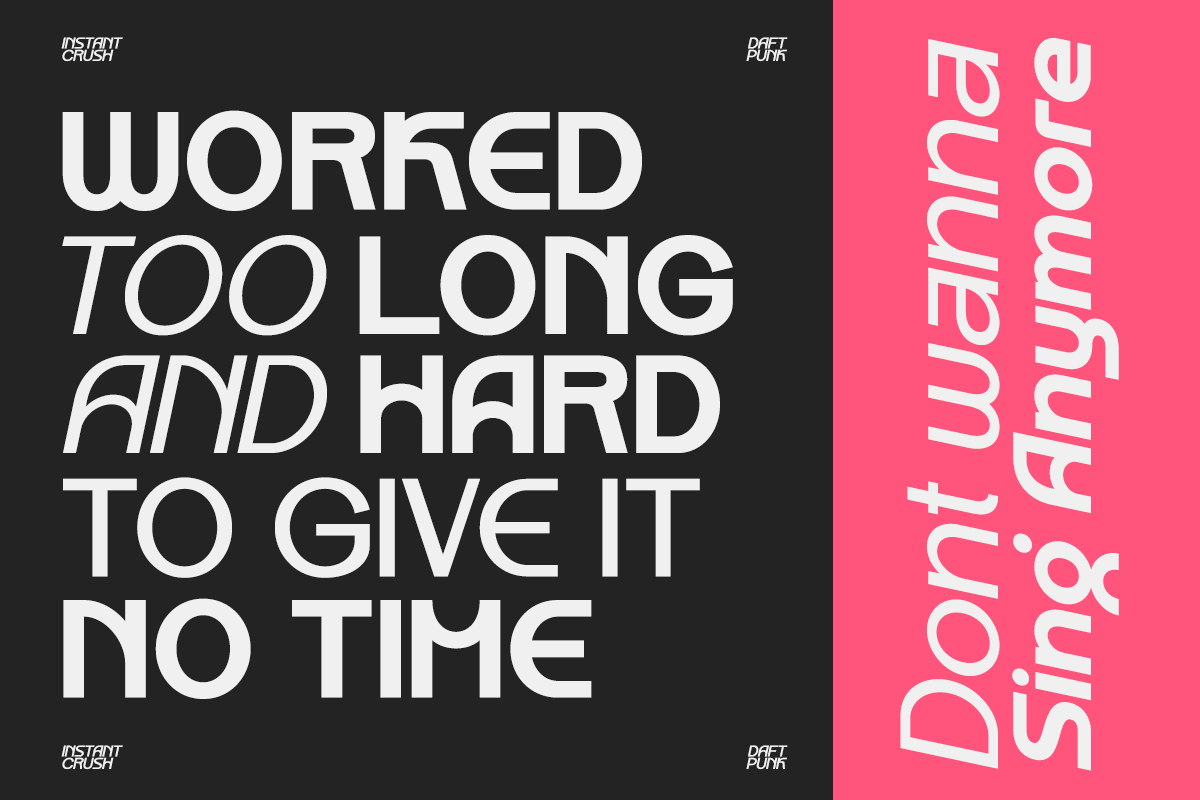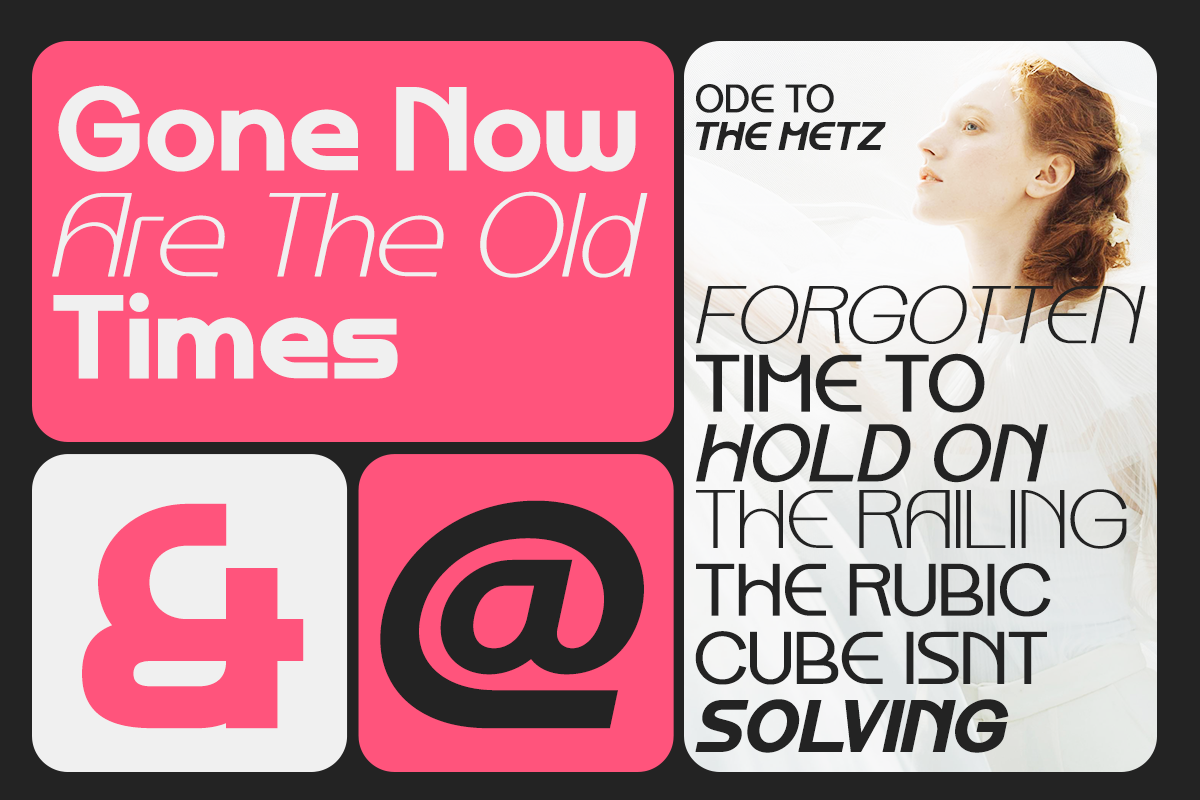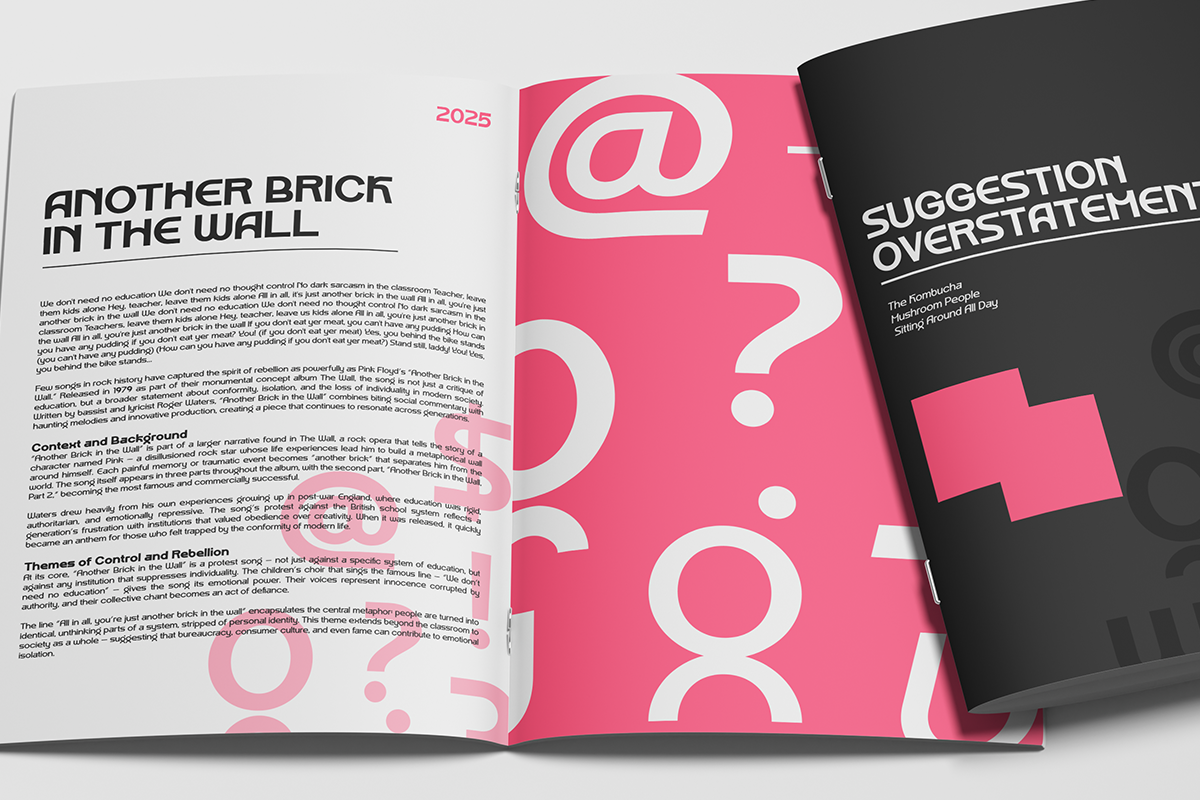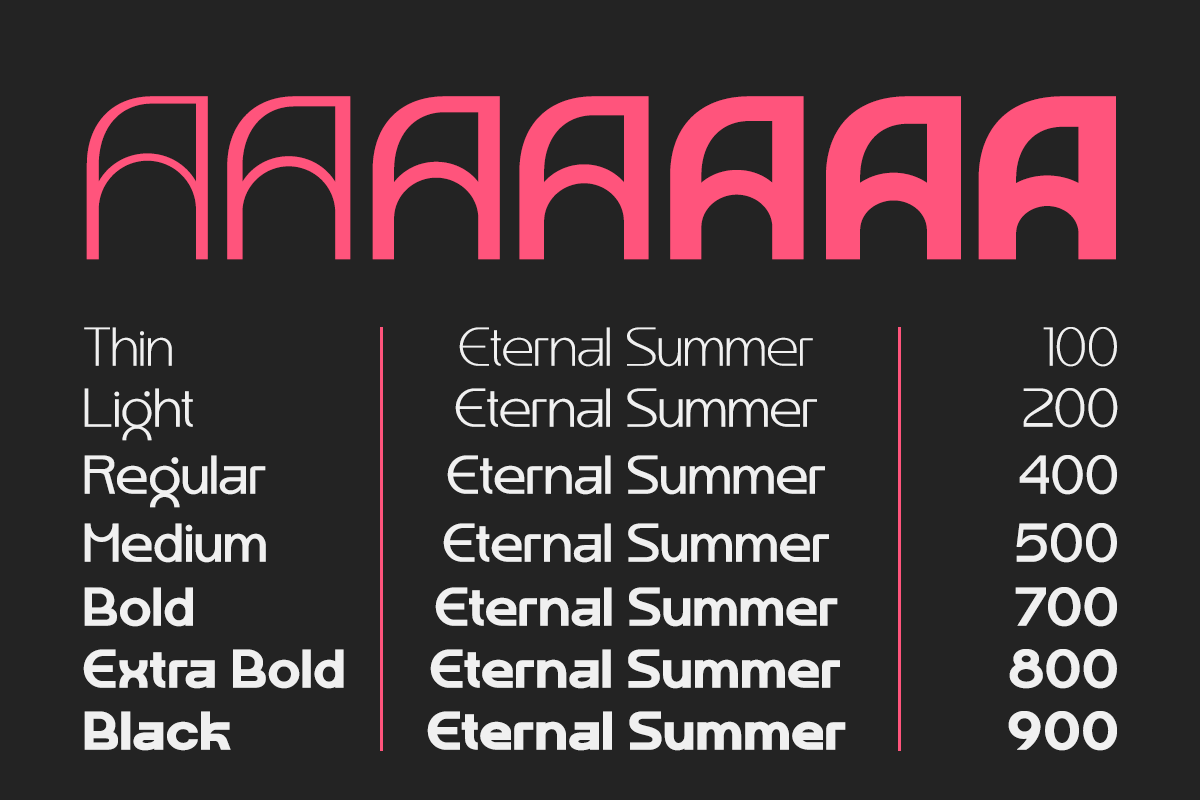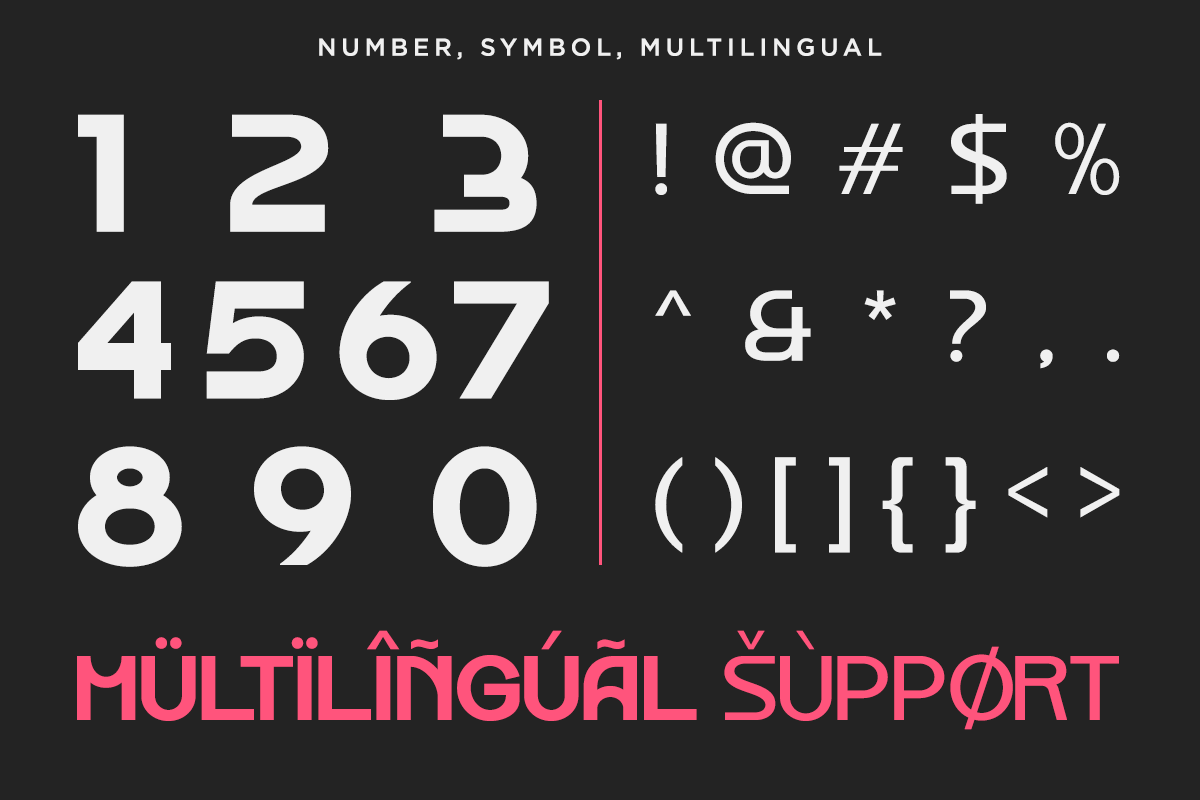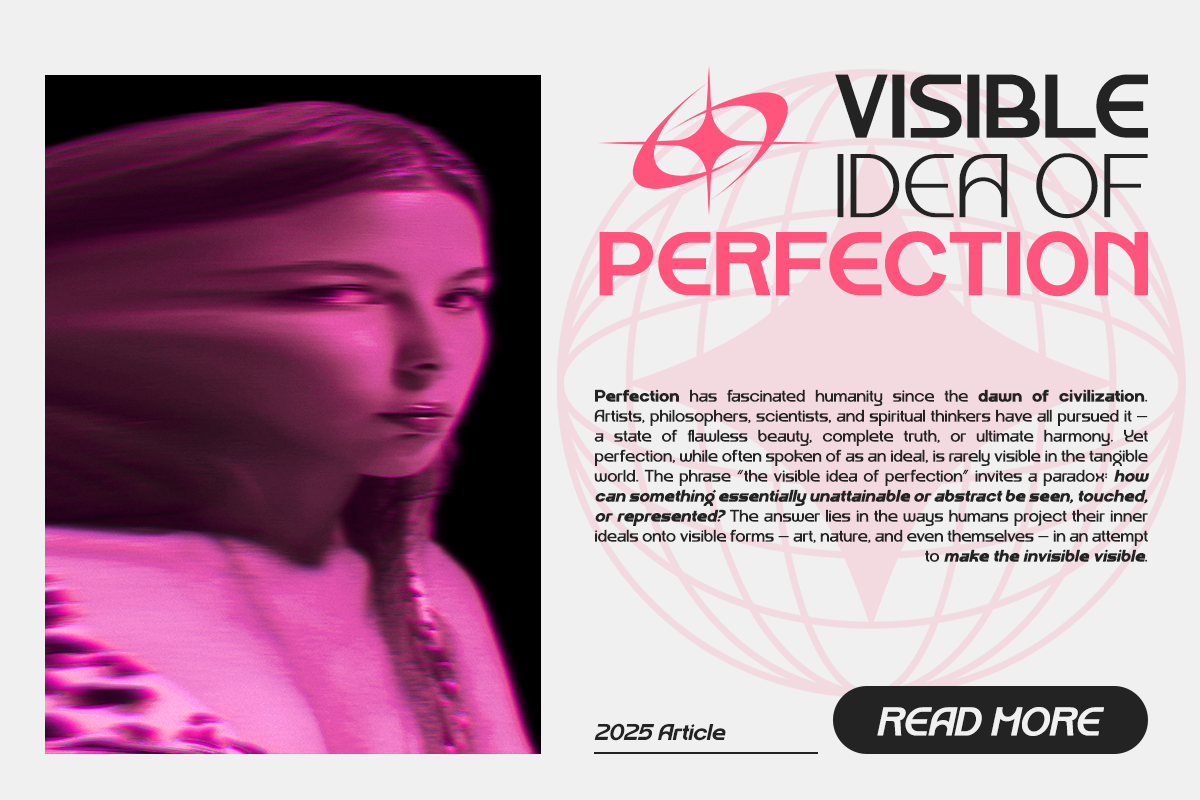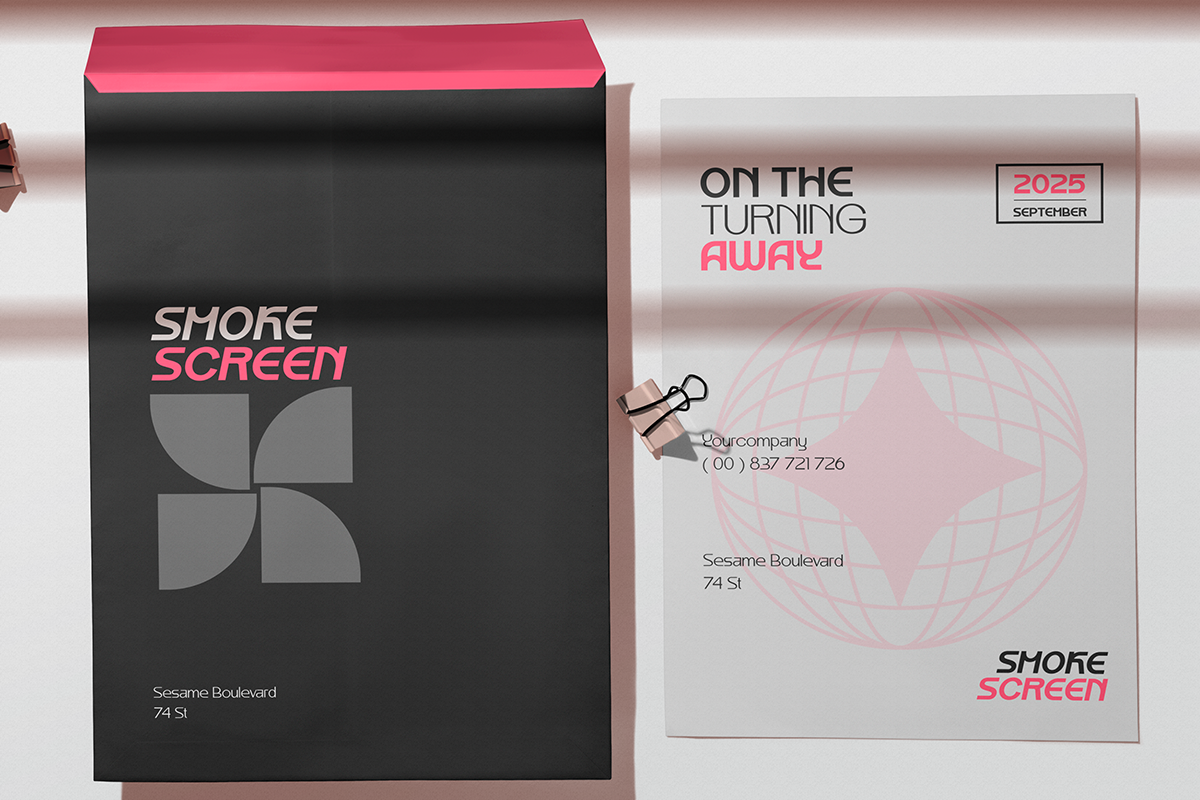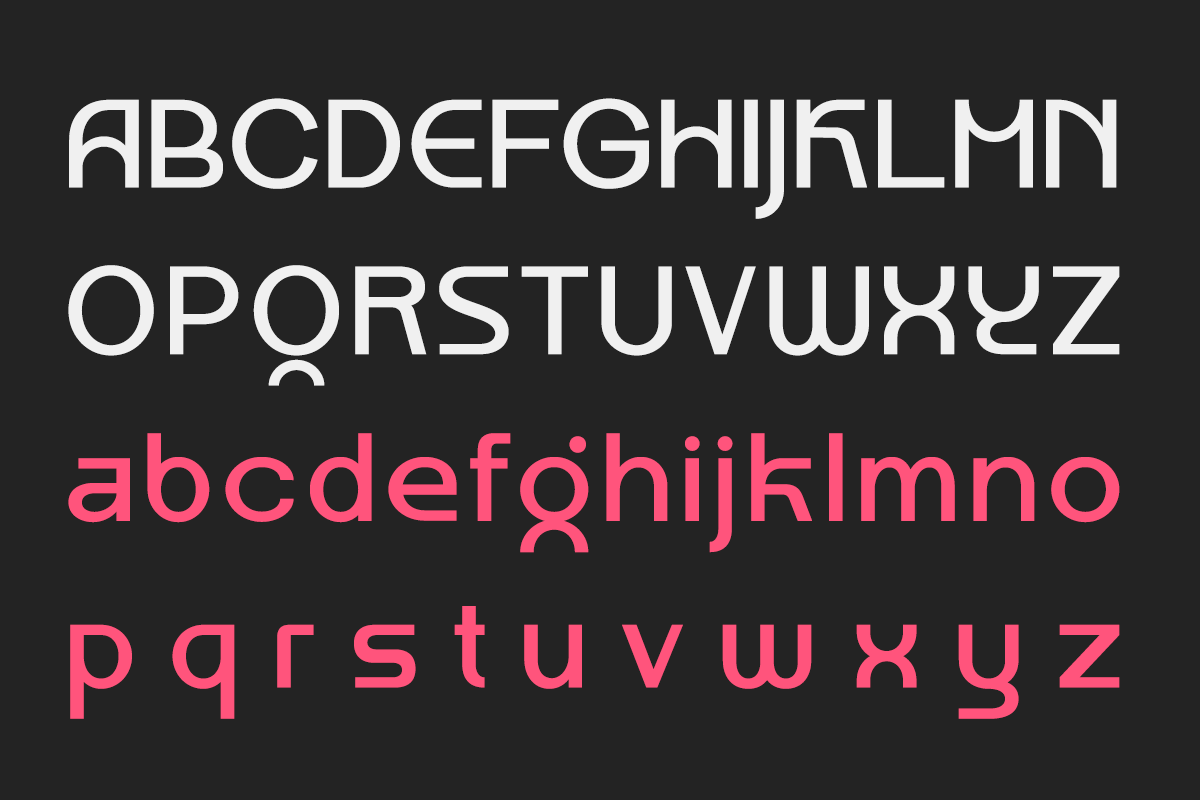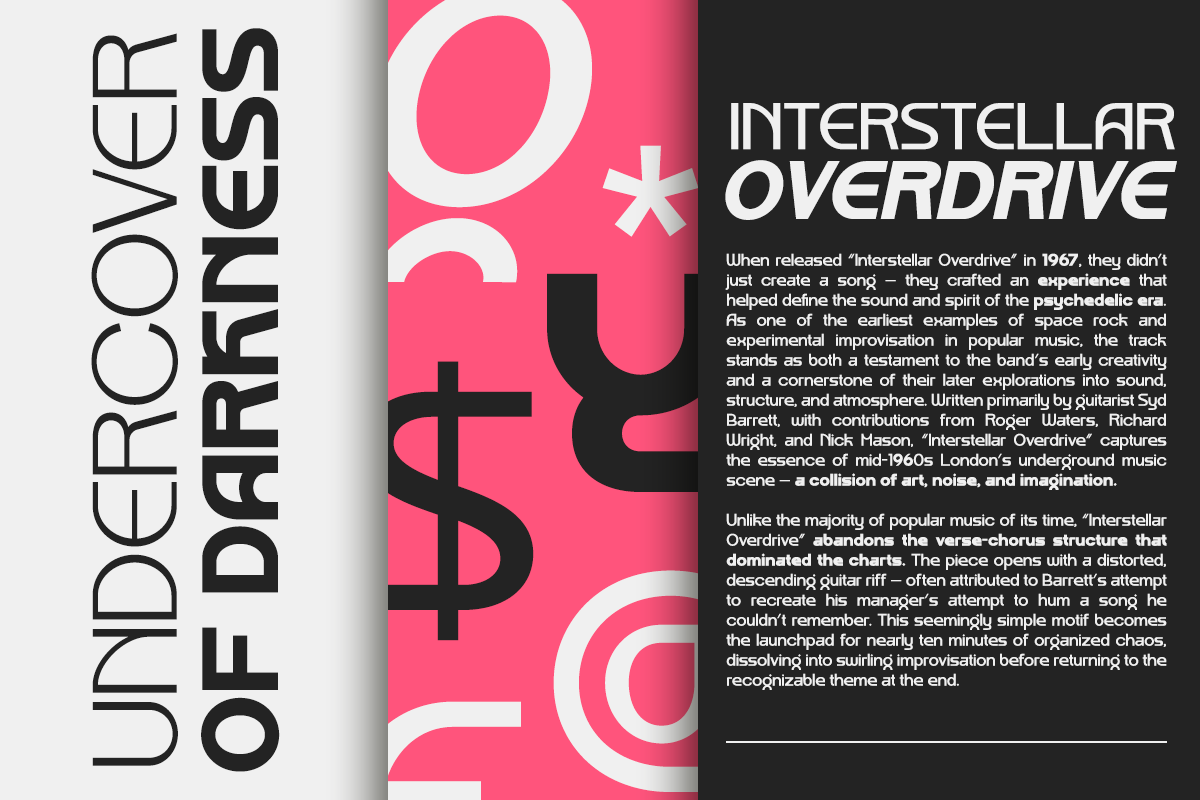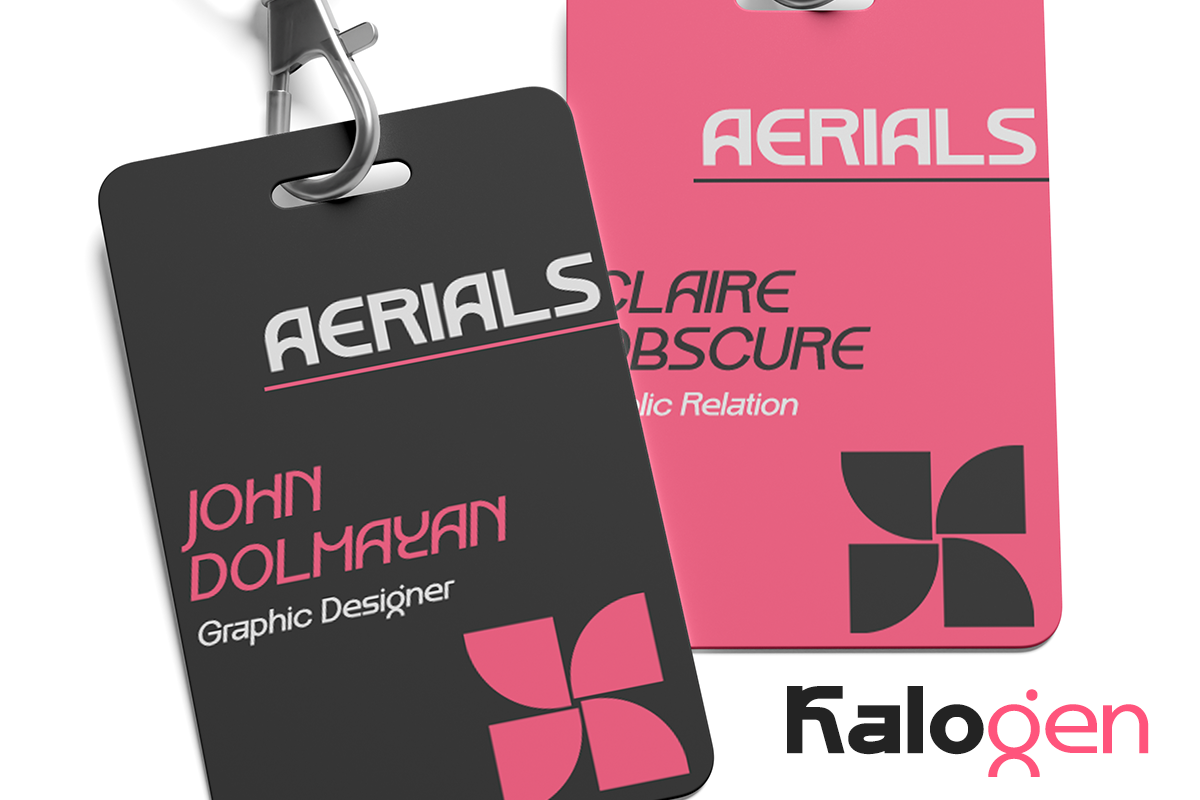
Kalogen - Family Modern Sans Serif
Kalogen is a modern variable sans serif font crafted with a clean geometric structure and a distinctive contemporary character. Its balanced proportions and smooth letterforms create a polished look that works beautifully across both bold headlines and refined layouts.
Featuring 7 flexible weights from Thin to Black, Kalogen gives you complete control over typography, hierarchy, and visual impact. Its versatile design makes it ideal for branding, editorial design, posters, advertising, packaging, fashion, technology, magazines, and digital content.
With its modern aesthetic and strong visual presence, Kalogen is a versatile typeface for designers looking to create clean, expressive, and contemporary typography for a wide range of creative projects.
7 Variable Weight
Thin To Black Variations
Regular and Italic
Number, Symbol, and Punctuation